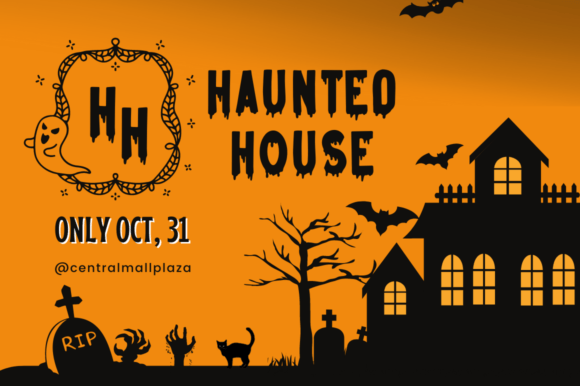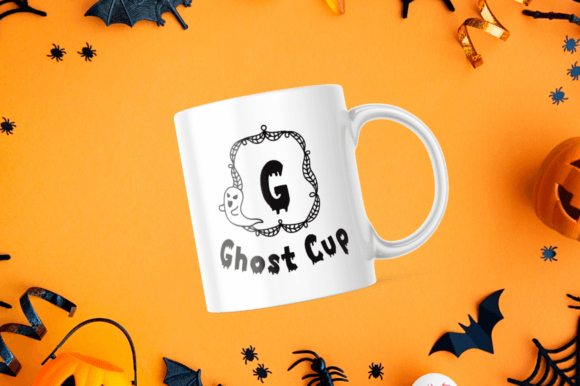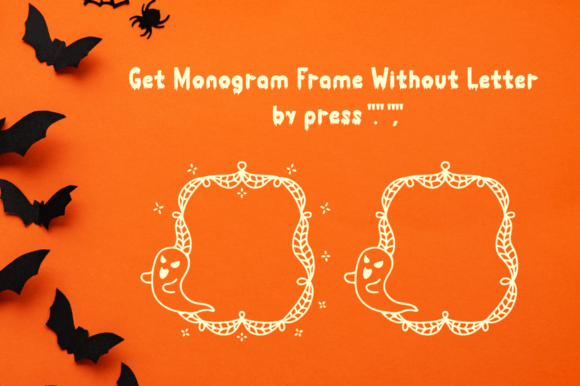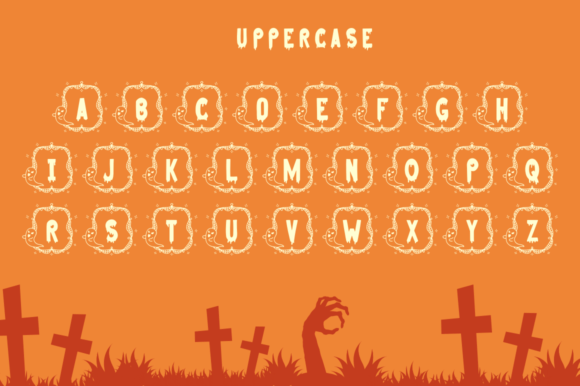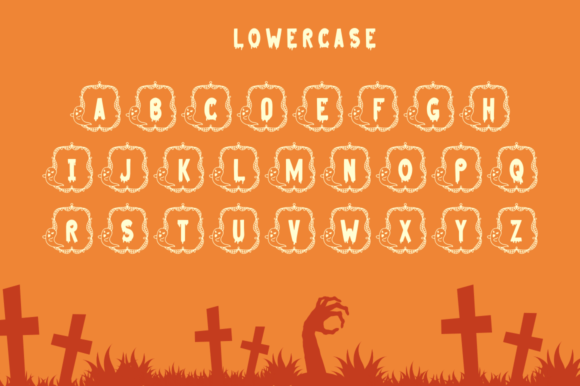
Hantu Monogram Font: The Spookiest Addition to Your Halloween Designs
Are you ready to add a spooky touch to your Halloween designs? Look no further than the Hantu Monogram Font, a creepy and mysterious font that’s perfect for creating howling good designs. In this article, we’ll dive into the details of this hauntingly beautiful font and explore its uses, features, and benefits for designers and crafters.
What is Hantu Monogram Font?
Hantu Monogram Font is a Halloween-themed monogram font designed to evoke the spooky and scary atmosphere of the spookiest night of the year. The name “Hantu” is derived from the Malay word for “ghost” or “spirit,” which perfectly captures the essence of this eerie font. With its creepy and mysterious vibe, Hantu Monogram Font is ideal for creating designs that will leave a lasting impression on your audience.
Features of Hantu Monogram Font
Hantu Monogram Font boasts a range of features that make it the perfect addition to your Halloween designs. Some of its key features include:
- Monogram style: Hantu Monogram Font features a stylish monogram design that’s perfect for creating logos, branding, and social media posts.
- Halloween theme: This font is specifically designed for Halloween, making it the perfect choice for creating spooky and scary designs.
- Creepy and mysterious vibe: Hantu Monogram Font has a hauntingly beautiful quality that will add a touch of eeriness to your designs.
- Versatile: This font can be used for a range of design projects, from business designs and logos to social media posts and craft projects.
Uses of Hantu Monogram Font
Hantu Monogram Font is a versatile font that can be used for a range of design projects. Here are some ideas to get you started:
- Halloween party invitations: Create spooky and scary invitations that will set the tone for your Halloween party.
- Business designs: Use Hantu Monogram Font to create logos, branding, and marketing materials that will give your business a creepy and mysterious edge.
- Social media posts: Add a touch of Halloween spirit to your social media posts with this hauntingly beautiful font.
- Craft projects: Use Hantu Monogram Font to create spooky and scary craft projects, such as Halloween cards, decorations, and gift tags.
- Logos and branding: Create a lasting impression with a creepy and mysterious logo that will set your business apart from the competition.
Benefits of Using Hantu Monogram Font
So why choose Hantu Monogram Font for your Halloween designs? Here are some benefits of using this hauntingly beautiful font:
- Adds a touch of eeriness: Hantu Monogram Font will add a creepy and mysterious vibe to your designs, making them stand out from the crowd.
- Increases engagement: The spooky and scary atmosphere of this font will grab the attention of your audience and keep them engaged.
- Perfect for Halloween: Hantu Monogram Font is specifically designed for Halloween, making it the perfect choice for creating seasonal designs.
- Easy to use: This font is easy to use and can be incorporated into a range of design projects, from beginner to advanced.
Tips for Using Hantu Monogram Font
Here are some tips for getting the most out of Hantu Monogram Font:
- Experiment with different colors: Try pairing Hantu Monogram Font with different colors to create a unique and eye-catching design.
- Use it sparingly: Use Hantu Monogram Font sparingly to create a sense of mystery and intrigue.
- Pair it with other fonts: Experiment with pairing Hantu Monogram Font with other fonts to create a unique and interesting design.
- Get creative: Don’t be afraid to get creative and try new things with Hantu Monogram Font.
In conclusion, Hantu Monogram Font is a spooky and scary font that’s perfect for adding a touch of eeriness to your Halloween designs. With its creepy and mysterious vibe, this font is ideal for creating howling good designs that will leave a lasting impression on your audience. Whether you’re a designer, crafter, or business owner, Hantu Monogram Font is a must-have for your Halloween design projects.